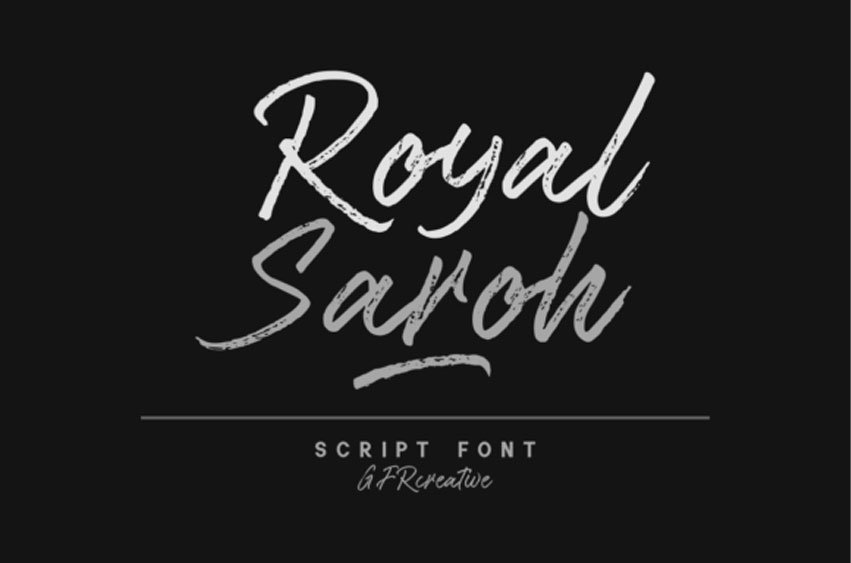
Royal Saroh Font is a flowing and delicate handwritten font that embodies charm and elegance in every character.
Use it for projects that need lovely, romantic typography!